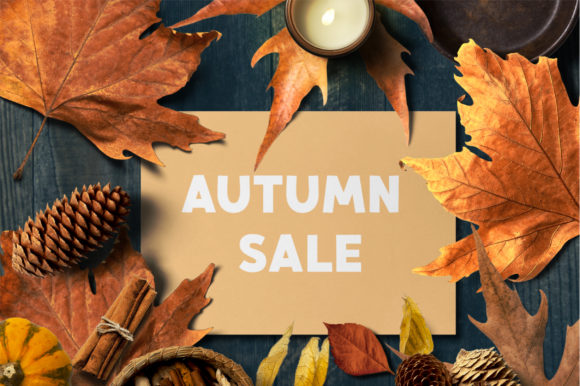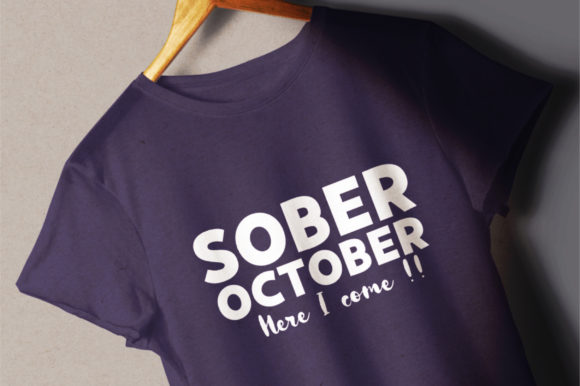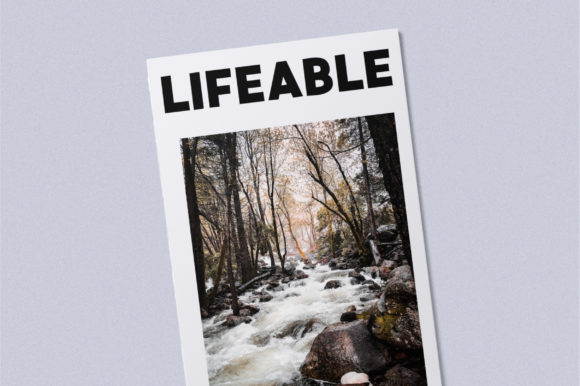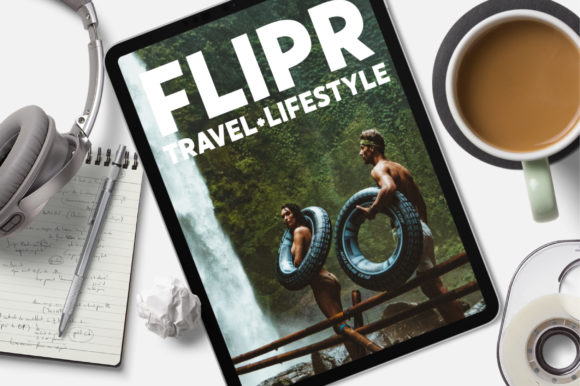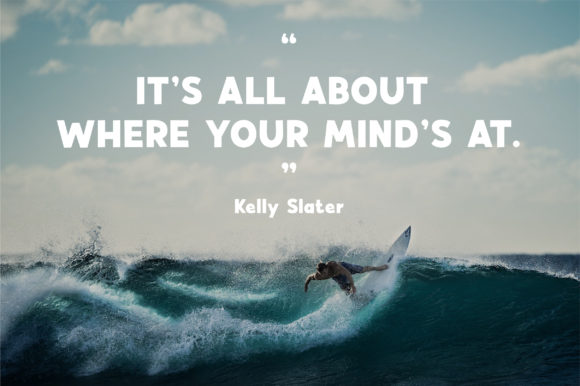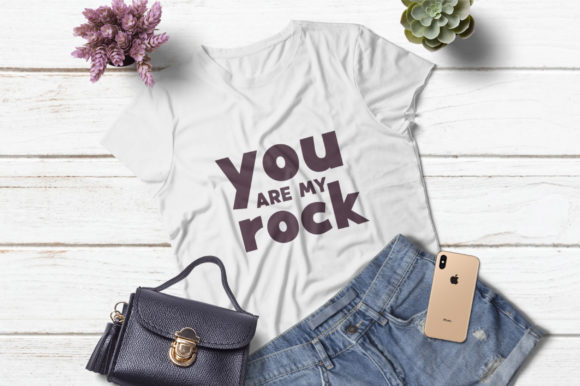
I’ll never forget the time I was working on a project for a client who needed a bold, eye-catching font to make their brand stand out. I spent hours scouring the internet for the perfect font, but nothing seemed quite right. That was until I stumbled upon Bonteri Font. This bold and chunky lettered display font has been a game-changer for my designs, and I’m excited to share its power with you! 💡
An Honest Review of Bonteri Font
- ✨ **Bold and attention-grabbing**: Bonteri Font is perfect for making a statement with your designs. Its chunky letters demand attention and ensure your message gets seen.
- ✅ **Versatile**: Whether you’re working on a social media post, advertising campaign, business branding, or poster design, Bonteri Font is an excellent choice.
- 💻 **Easy to read**: Despite its boldness, Bonteri Font remains surprisingly easy to read, even at smaller sizes.
While Bonteri Font is an excellent choice for many designs, there are a few things to keep in mind:
- 🤔 **Limited use in body text**: Due to its bold nature, Bonteri Font is best used in headings or titles rather than body text.
- ⚠️ **May not be suitable for small sizes**: While Bonteri Font remains readable at smaller sizes, it may not be the best choice for very small text, such as captions or fine print.
The Backstory of Bonteri Font
Bonteri Font was designed with the goal of creating a bold, yet versatile font that could be used in a variety of design applications. Its chunky letters and clean lines make it perfect for designs that require a strong, attention-grabbing font. While the actual designer of Bonteri Font remains a mystery, it’s clear that they had a deep understanding of what makes a font both functional and visually appealing.
Q: What type of designs is Bonteri Font best suited for?
A: Bonteri Font is perfect for designs that require a bold, attention-grabbing font, such as social media posts, advertising campaigns, business branding, and poster designs.
Q: Can I use Bonteri Font for body text?
A: While Bonteri Font is easy to read, its bold nature makes it better suited for headings or titles rather than body text.
Q: Is Bonteri Font available in different styles?
A: Bonteri Font may come in different styles or variations, such as italic or oblique versions. Check with the font foundry or designer for specific availability.